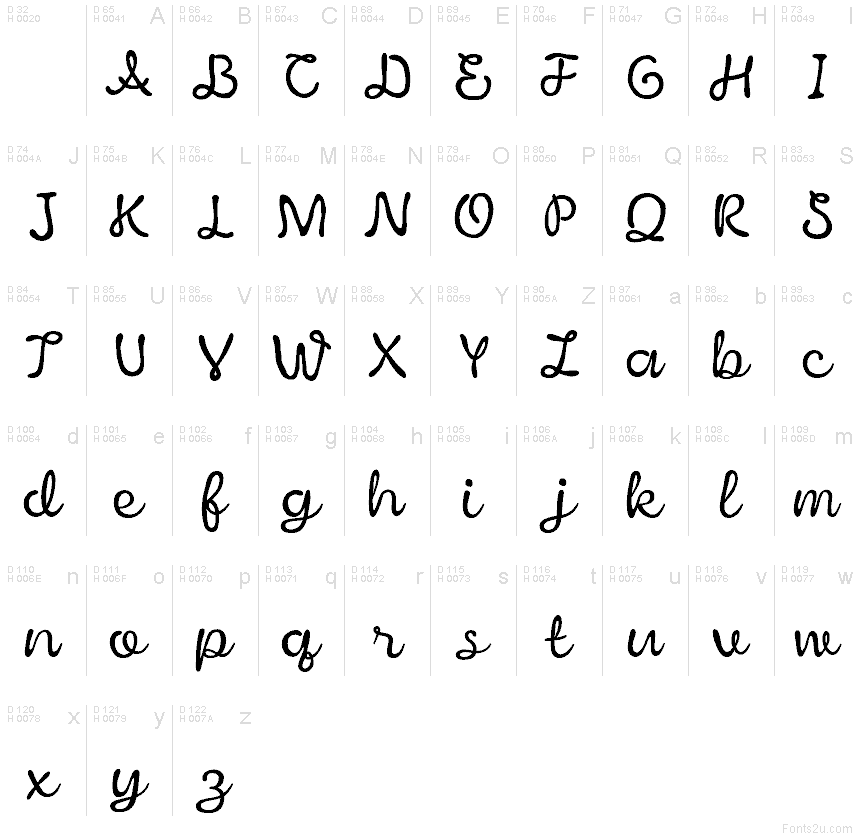
CS Admire Regular Demo
CS Admire font by Craft Supply Co. is a free regular monoline handwritten script font. Its smooth, even strokes wrap into airy loops and rounded terminals, giving every word a friendly, ink-on-paper feel. There’s a gentle bounce to the rhythm—enough play to feel personal, yet consistent enough to stay legible at small sizes and charming at display scale.
Using CS Admire, headlines and marks read like a confident signature that’s been practiced, not forced. It shines on wedding stationery, boutique logos, product labels, quote graphics, social banners, packaging, and name badges. The open counters keep it clear on textured backgrounds, while the steady monoline builds brand warmth. Pair this free font with a clean grotesk sans and add generous letterspacing for subheads.